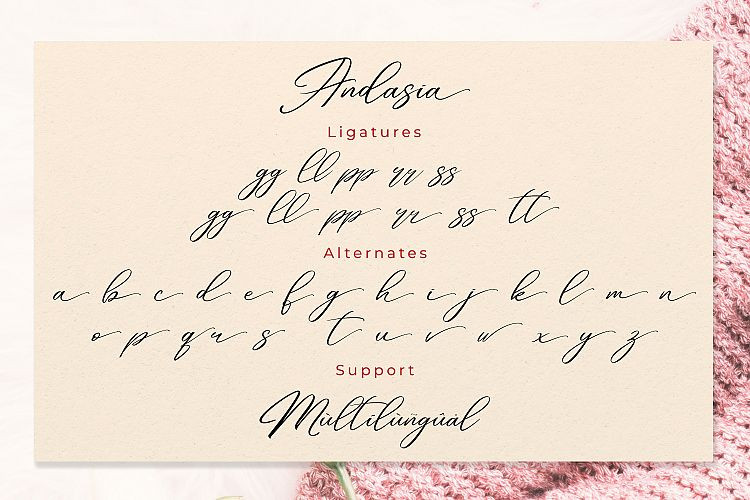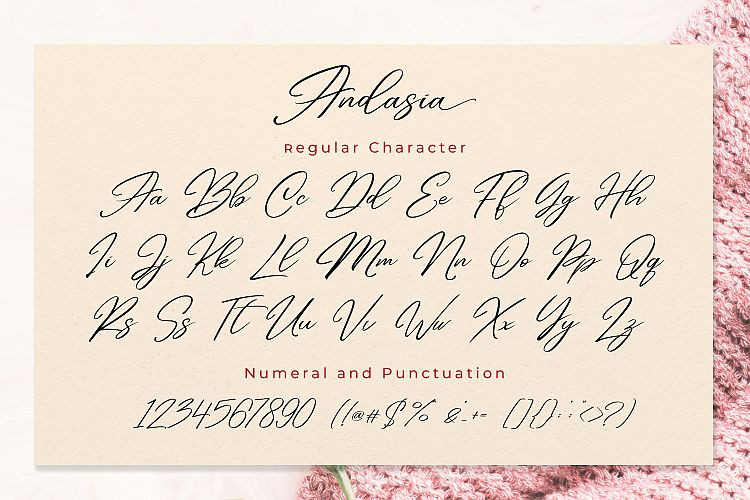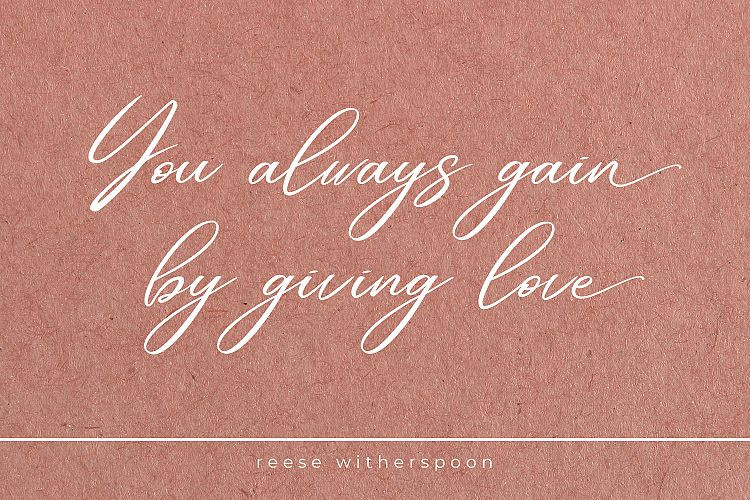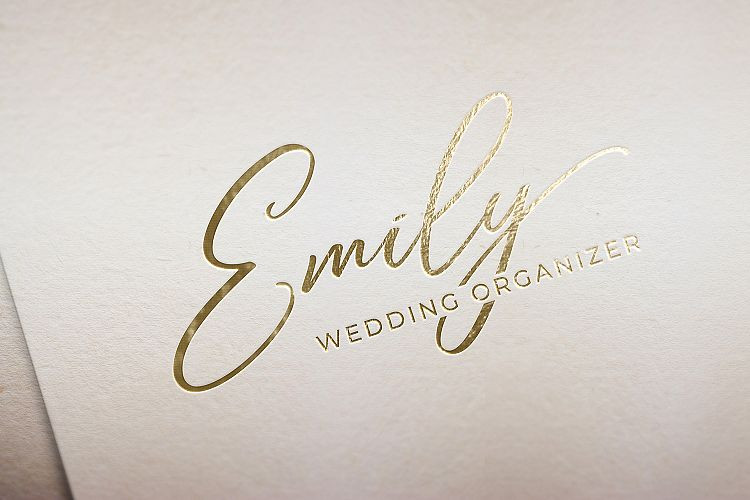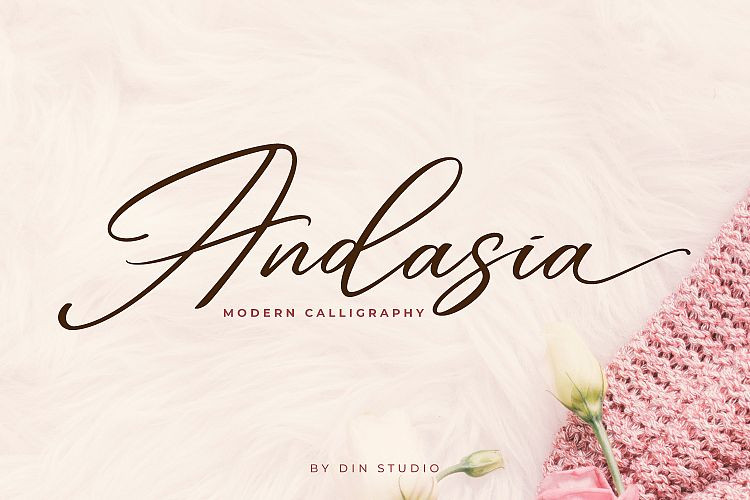
Andasia Script Font
Andasia Script Demo Font
A modern calligraphy typeface. This is a modern calligraphy font with the current handwriting style. Introducing Andasia Font. Andasia Script beautiful calligraphy with natural and handwritten style. It brings a beautiful and modern typeface that best used for weddings, branding, logotype, and quotes.